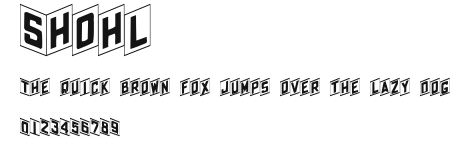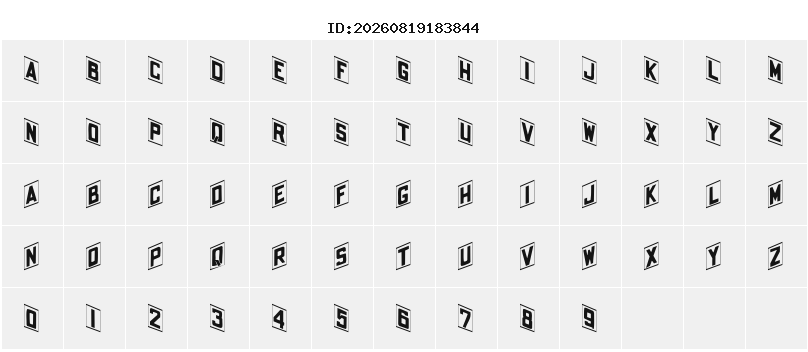
• Font Name: Shohl
• Font ID: Altsys Metamorphosis:Shohl Regular
• Full Font Name: Shohl Regular
• Version: Altsys Metamorphosis:4/11/92
• PostScript Name: Shohl Regular
• Character Count: 130
About Shohl.ttf
Shohl.ttf is a modern, elegant sans-serif font designed for ultimate readability and visual harmony. Perfect for branding, headlines, web design, and print materials.